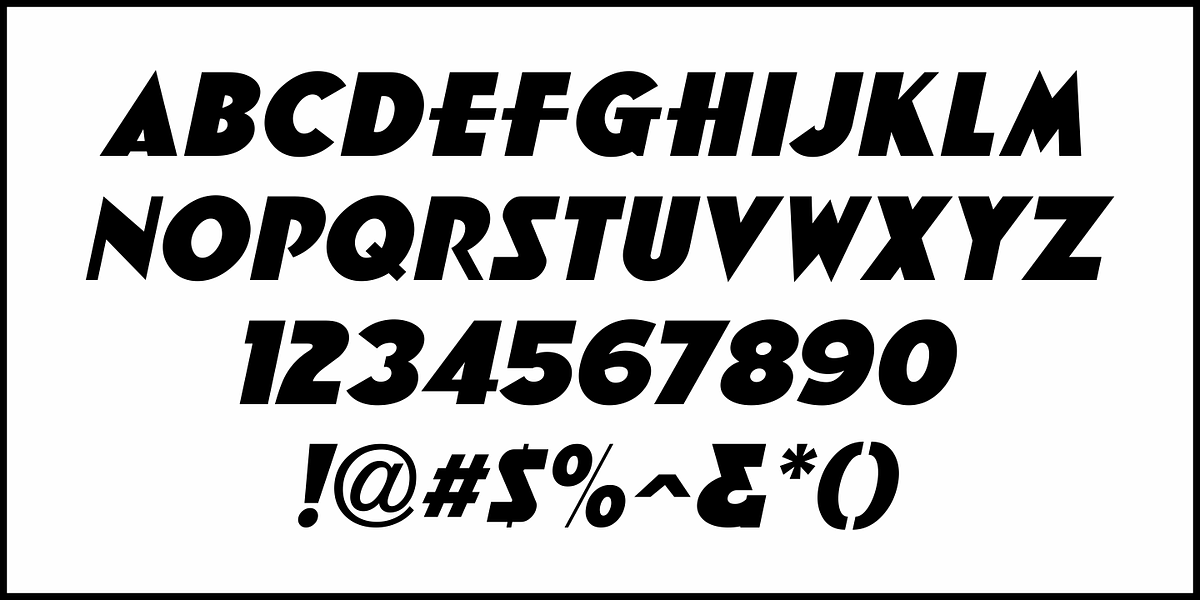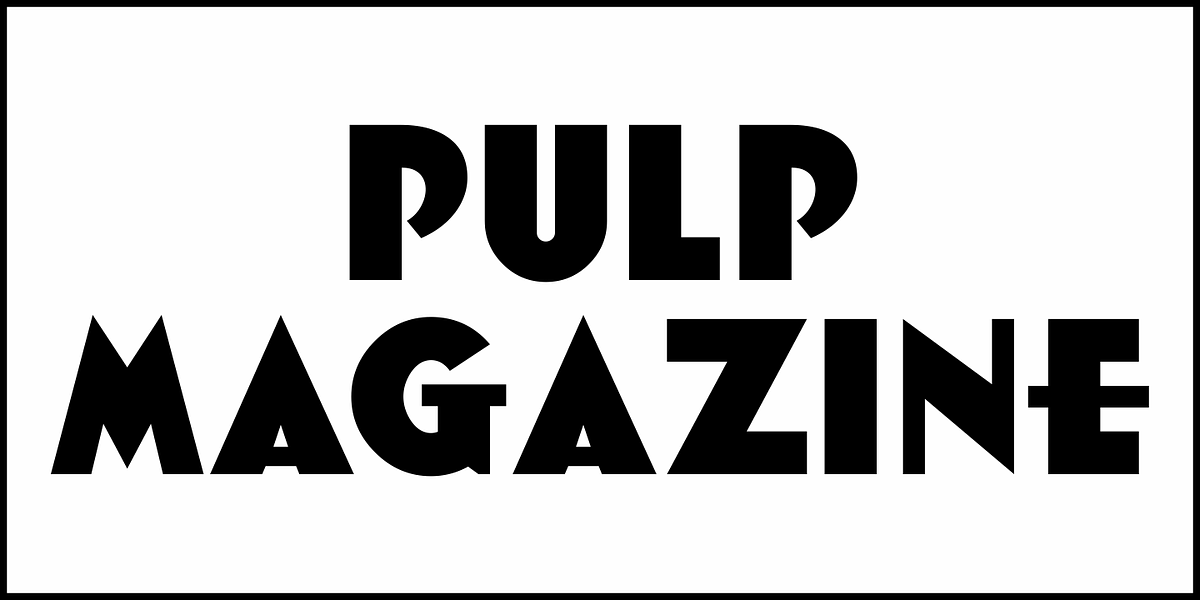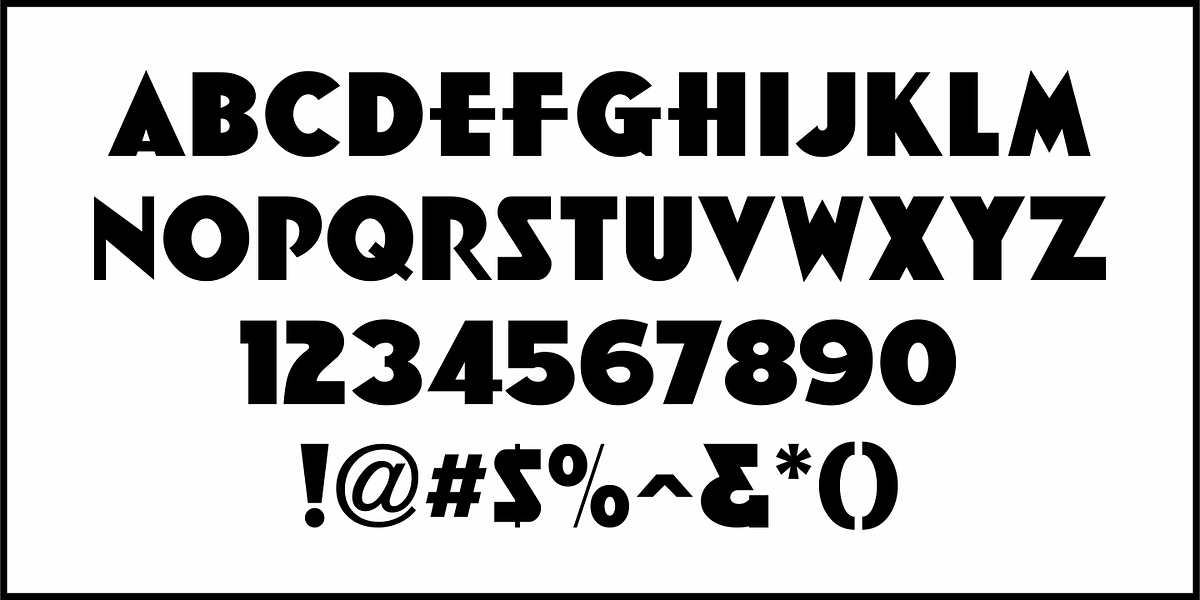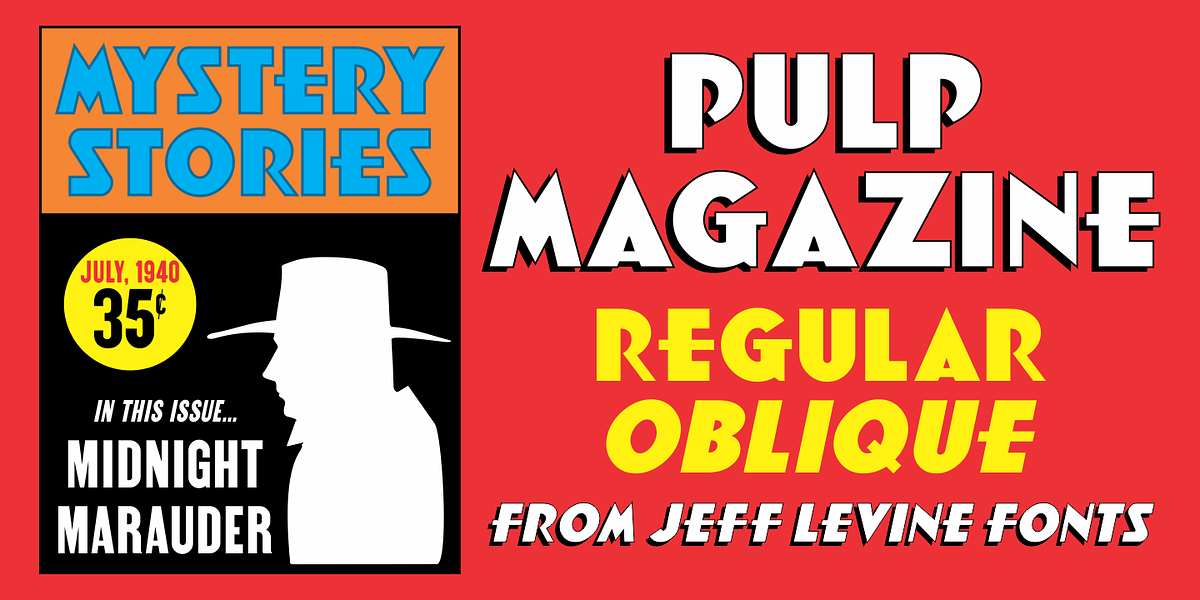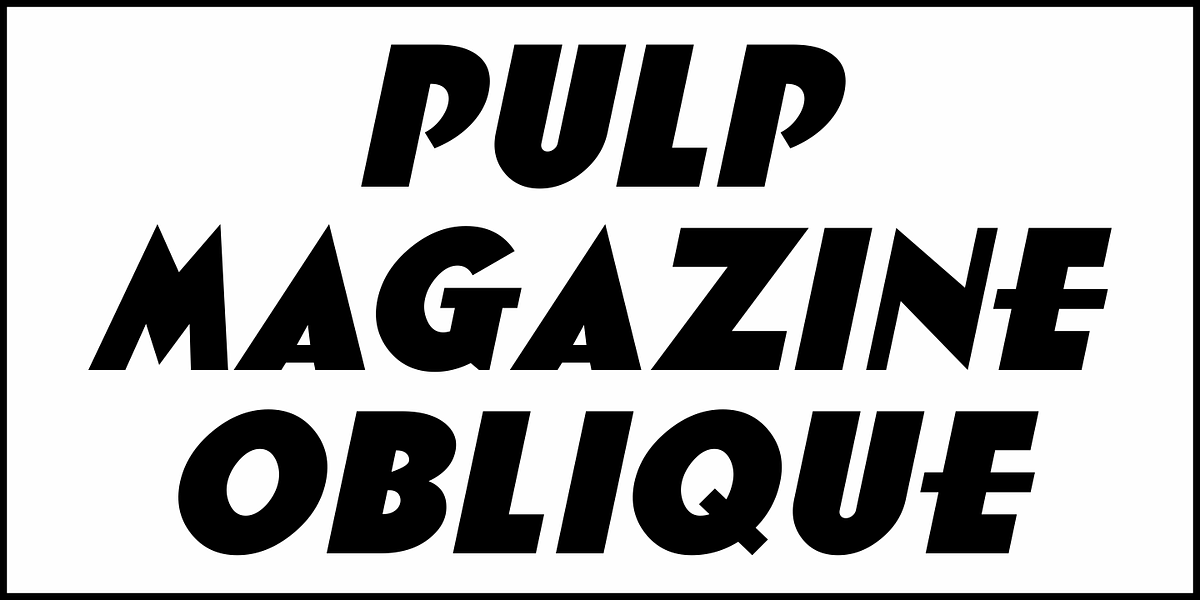
Pulp Magazine JNL
For a pulp magazine called Spicy Western Stories, it was unusual that the January 01, 1939 issue had its cover title hand lettered in an extra bold Art Deco style rather than Western influenced lettering.
This did not stop the lettering from being used as the design model for a digital type revival.
Pulp Magazine JNL, is available in both regular and oblique versions.